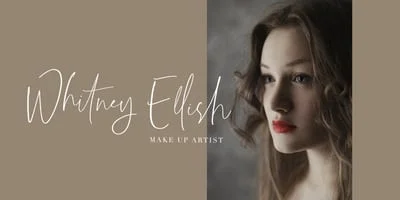
Pamella Font
The Pamella Font excels in various design applications including personal branding projects, intimate boutique signage, handcrafted product packaging, artisanal beauty brands, personalized stationery design, custom wedding invitations, friendly bakery communications, cozy cafe materials, warm hospitality branding, and charming small business identities that demand personal warmth and approachable sophistication.
What makes the Pamella Font exciting is its embodiment of personal charm and friendly sophistication through letterforms that suggest the warmth of handwritten notes and the approachable elegance of personal correspondence. This typeface captures the essence of intimate communication through carefully crafted characters that feel both professional and personally inviting, creating typography that establishes immediate connection and trust. The font's personal personality makes it perfect for businesses and brands seeking to communicate individual attention, personal care, and the genuine warmth of human connection through typography that feels like it was created specifically for each reader.
The Pamella Font family typically includes friendly weight variations that maintain personal warmth, featuring approachable italic styles with gentle curves and welcoming decorative elements. These family options often include personalized alternates with handwritten characteristics, friendly ligatures, and charming ornaments that provide designers with comprehensive tools for creating authentically personal typography that celebrates individual connection and human warmth while maintaining professional credibility.
Small business owners and personal brand creators consistently choose Pamella Font for projects requiring typography that builds personal relationships and communicates genuine care. This typeface delivers exceptional performance in boutique branding, personal services marketing, and intimate communications where establishing trust and demonstrating personal attention is essential for customer loyalty. The font's friendly character makes it particularly effective for service-oriented and artisanal business applications. Download Pamella Font today to access this charming typeface that transforms personal communications with its warm sophistication and friendly appeal, creating compelling customer experiences that demonstrate genuine care and personal attention while maintaining the approachable elegance that builds lasting business relationships.